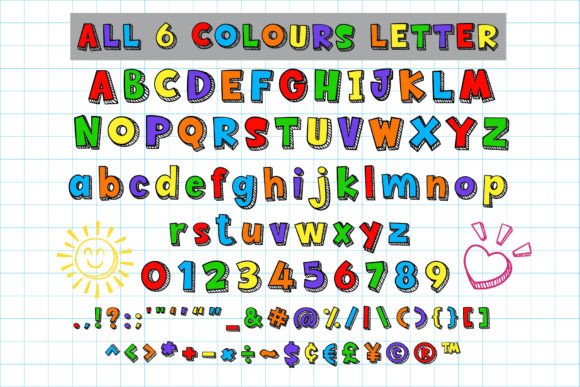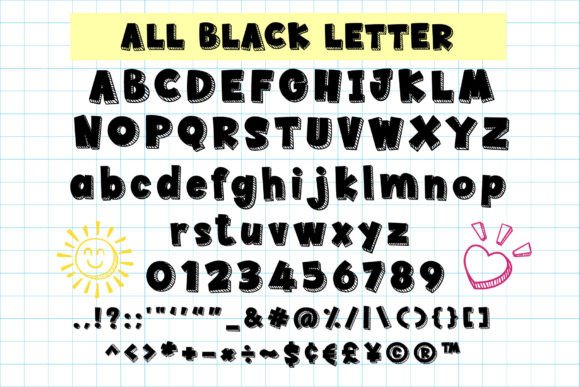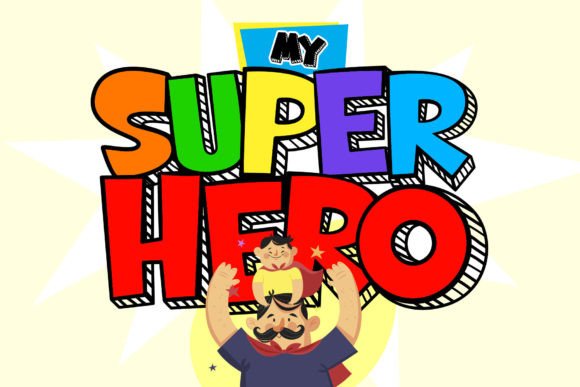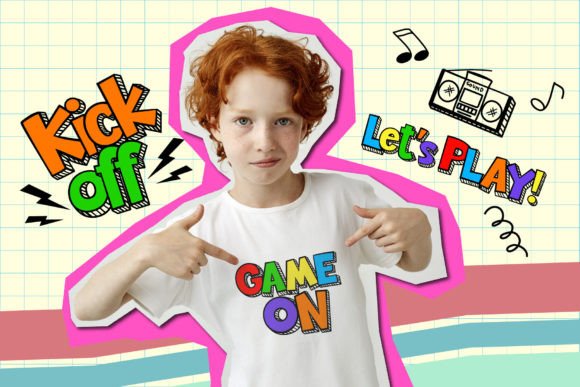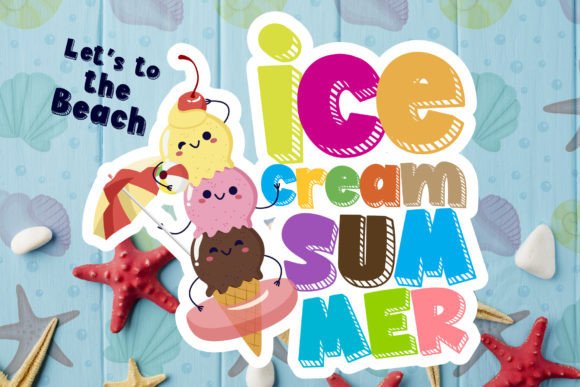
Introduction to School Kits Font
Do you remember the thrill of rummaging through your school supplies on the first day of class? The excitement of picking out a new set of pens, a fresh notebook, and a colorful pencil case? For many of us, those simple joys are a reminder of the carefree days of childhood. As designers, we strive to recapture that same sense of wonder and creativity in our work.
One way to do that is by incorporating the right design elements, like the School Kits Font. This fun and playful color font is the perfect addition to any creative project, from book covers to birthday cards and greeting cards. With its high-quality design and transparent background, it’s a valuable resource for designers looking to add a cute and friendly vibe to their work.
Key Features of School Kits Font
- Designed with a modern and playful style, perfect for educational materials
Honest Review: School Kits Font
As a designer, I’m always on the lookout for high-quality design resources to enhance my creative projects. Recently, I had the chance to work with the School Kits Font, and I’m excited to share my honest review with you.
- ✨ The School Kits Font offers a transparent background, which makes it perfect for creating visually appealing designs.
- ✨ The design is clean, modern, and versatile, making it suitable for a wide range of creative projects.
- ⚠️ The font may not be as customizable as some other design resources, which can be a limitation for designers who require a high level of flexibility.
- ⚠️ The School Kits Font may not be suitable for use in situations where a more formal or traditional font is required.
Overall, I’m impressed with the School Kits Font. Its high quality, versatility, and free download make it an excellent choice for designers working on a wide range of creative projects. While it may have some limitations, I believe it’s a valuable addition to any design resource collection.
The School Kits Font is a versatile font that can be used in a variety of creative projects. Some common use cases include designing school logos, creating educational materials, and making presentations for school events. This font is also great for use in social media graphics, flyers, and brochures.